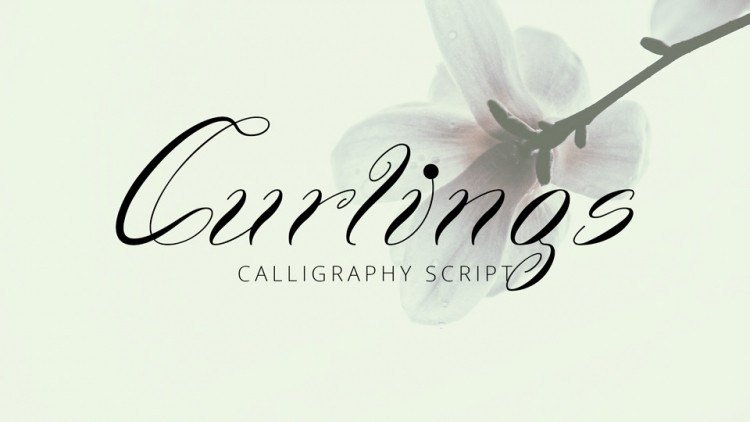
Curlings Calligraphy Font
Introducing Curlings is elegant and a fashionable handwriting font, which looks like a signature, This font is intentionally made with unique alternates.
Curlings suitable perfectly for branding, posters, invitations, greeting cards, news, product packaging, blog posters, logos, business cards, all including personal charms etc.